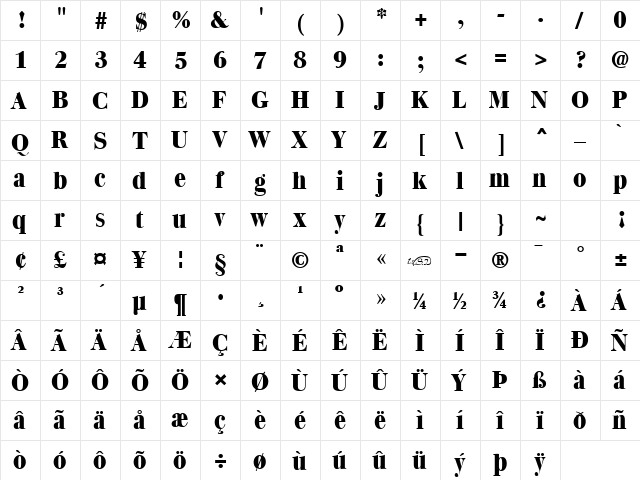
Quantas Extrabold Regular
Design Context for Quantas Extrabold Typeface
Quantas Extrabold takes a measured approach to typography — its balanced proportions and neutral character make it a reliable workhorse for both digital and print work. The heavy weight commands attention and anchors typographic hierarchies.